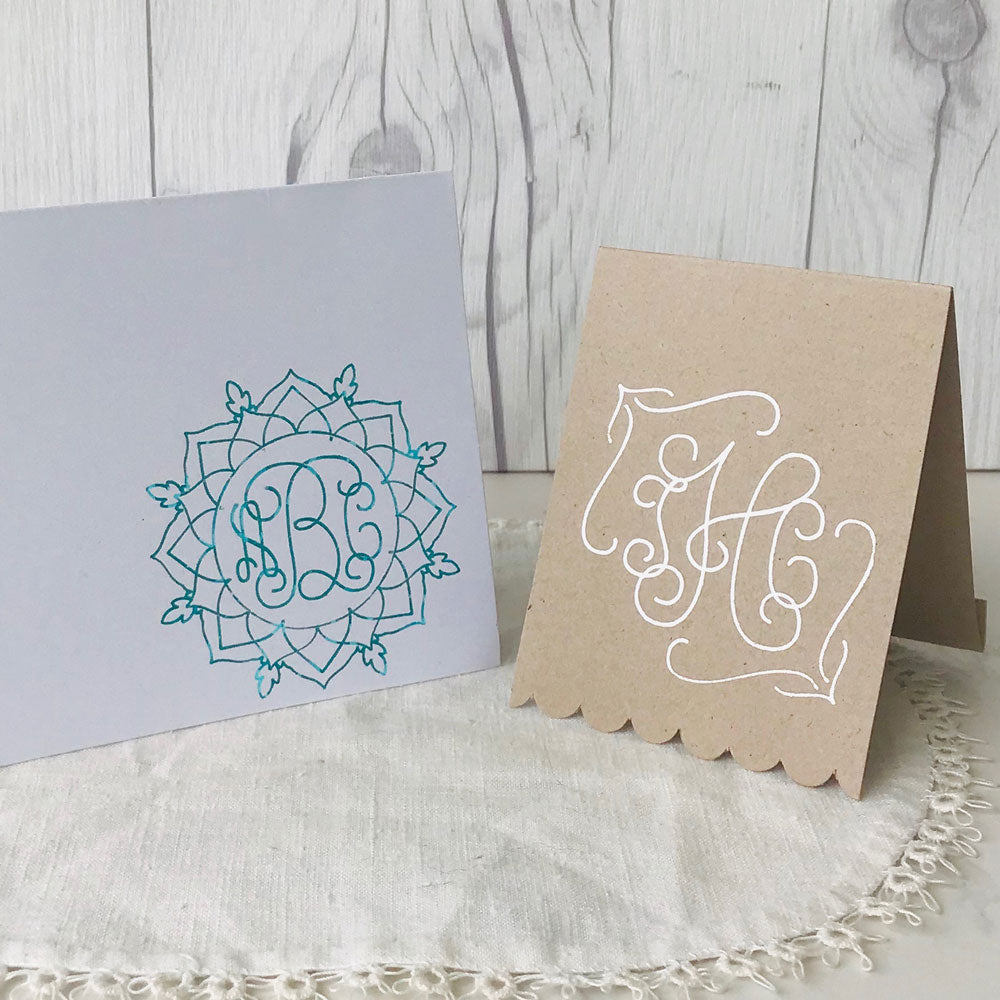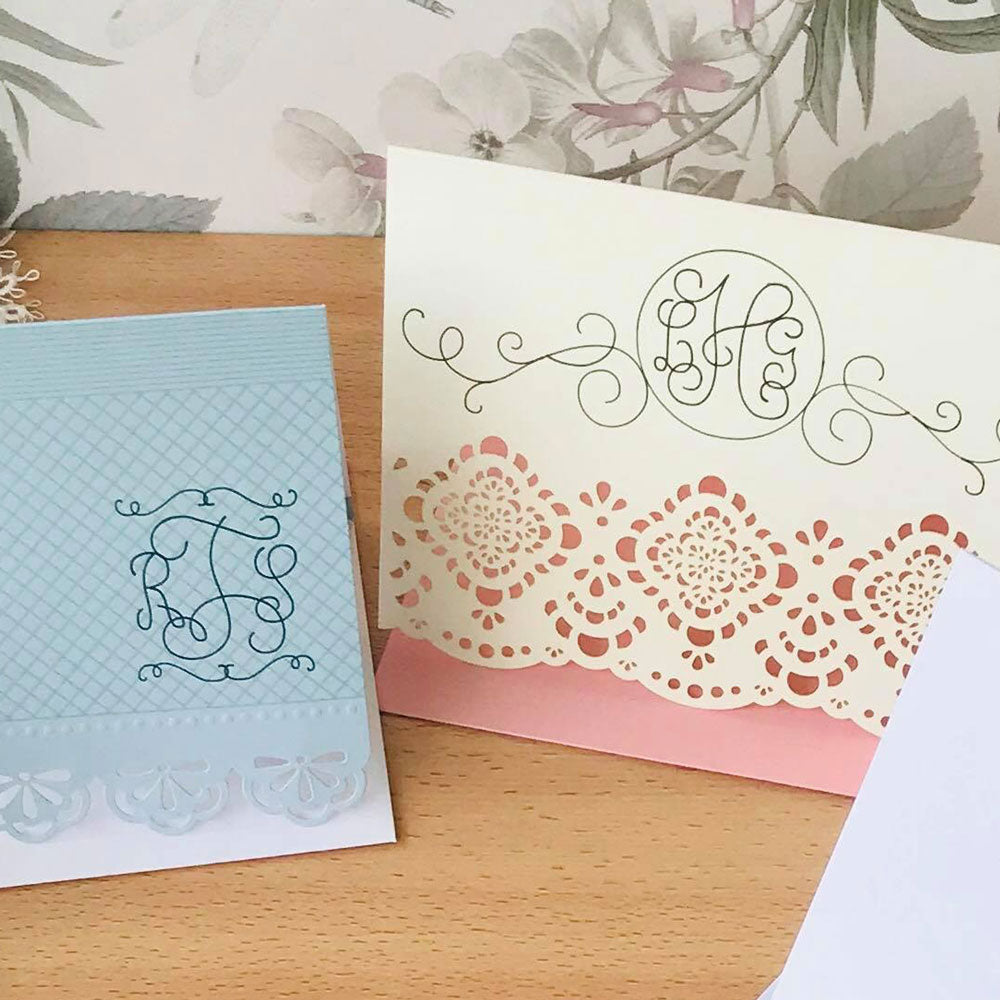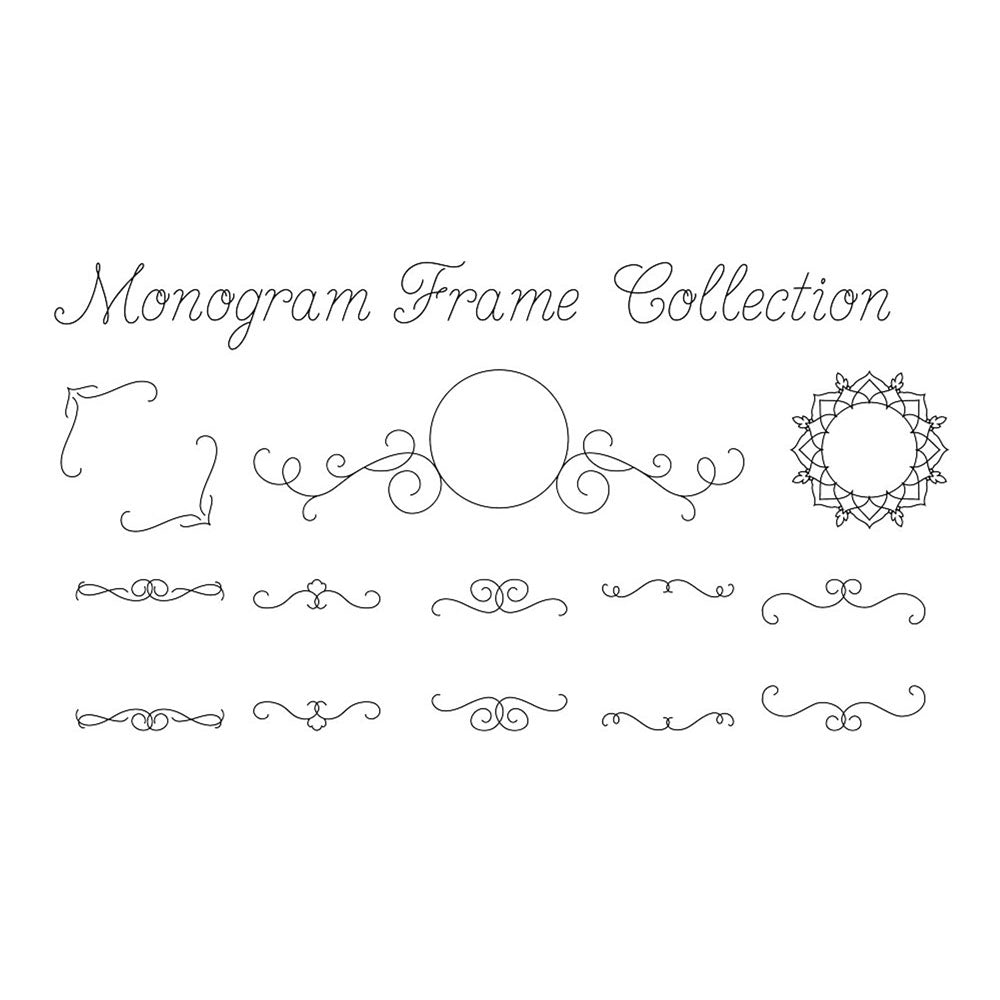
SLF Entwine – Vine Monogram Font for Engraving & Personalized Gifts
SLF Entwine is a decorative single line vine monogram font designed for creating elegant three-letter monograms. Flowing vine details form a graceful circular design around the initials, giving your projects a timeless and sophisticated look.
This font is ideal for engraving, scoring, CNC routing, and creative craft projects where decorative monograms add a personalized touch. Use it for wedding details, stationery, gifts, labels, and custom engraved pieces.
This monoline font includes a complete character set with uppercase letters, numbers, punctuation, symbols, and accented characters for multilingual support.
• Wedding stationery, personalized gifts, monogrammed décor, and engraved keepsakes